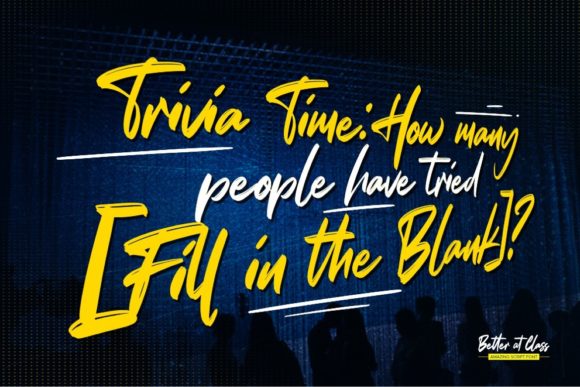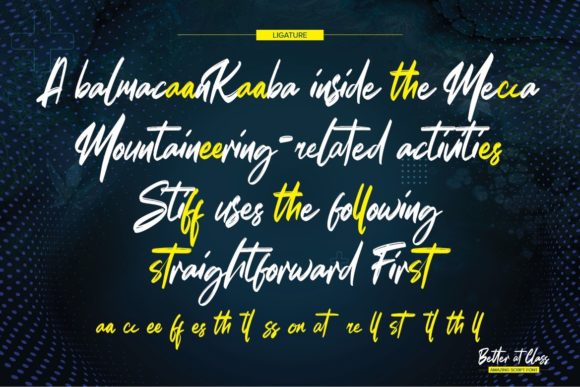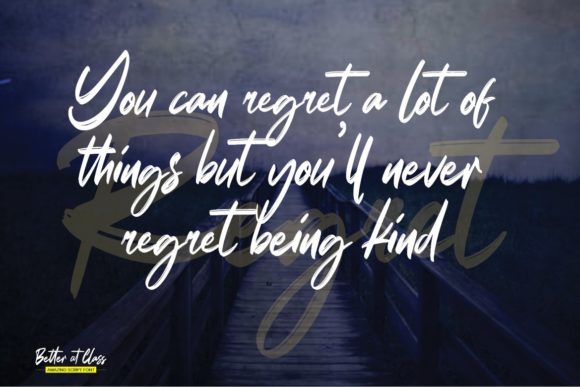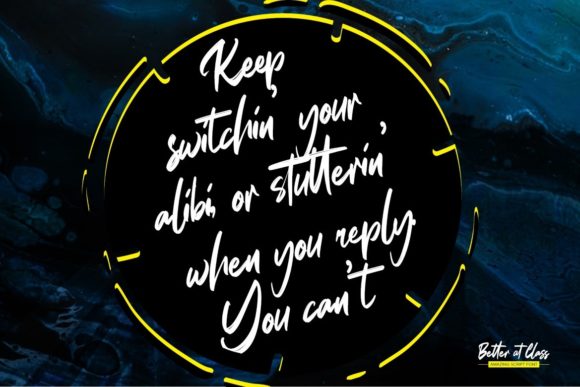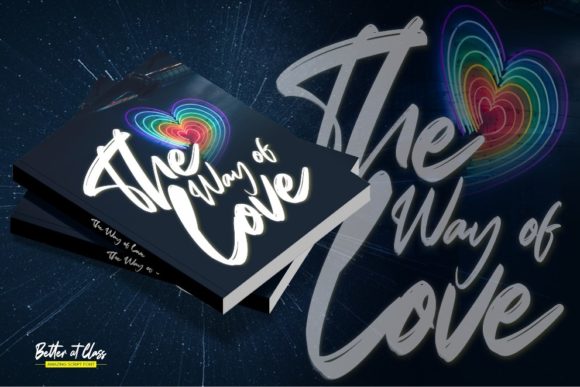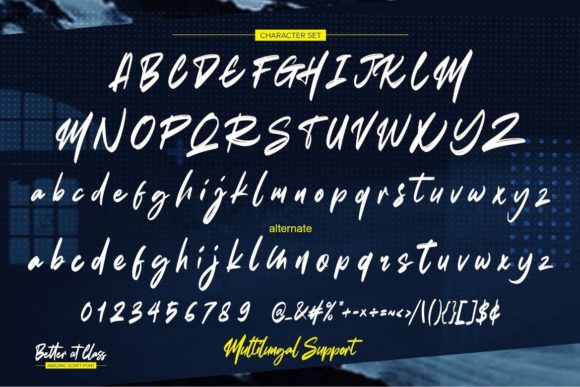
Ah, the eternal quest for the perfect font! I recall working on a project last year, pouring my heart and soul into every detail, only to hit a roadblock: finding a font that exuded luxury and sophistication. My client wanted a design that screamed high-end, but I was stuck with a sea of bland, generic fonts. That’s when I stumbled upon **Better at Class Font**, a game-changing, paint-brushed handwritten font that added a spark of elegance to my design. In this article, I’ll share my experience with Better at Class, its features, and how to make the most of it in various design platforms.
An Honest Review of Better at Class Font
- ✨ Luxurious feel: Better at Class adds a touch of sophistication to any design project.
- ✅ PUA encoded: Easy access to amazing glyphs and ligatures.
- 🎨 Versatile: Suitable for a wide range of design projects, from branding to packaging.
While Better at Class is an excellent font, there are a few minor limitations to consider:
- 🤔 Glyph overload: With so many glyphs and ligatures available, it can be overwhelming to navigate.
- ⚠️ Not suitable for body text: Better at Class is best used for headings, titles, or accents, as it may be too ornate for lengthy text.
The Designer Inspiration Behind Better at Class
While I couldn’t find any information on the designer’s background, it’s clear that Better at Class Font was crafted with love and attention to detail. The font’s luxurious feel and versatility make it a valuable addition to any designer’s toolkit. Perhaps the designer was inspired by the world of high-end fashion or luxury branding, where attention to detail and sophistication are paramount.
Q: Is Better at Class Font suitable for body text?
A: No, Better at Class Font is best used for headings, titles, or accents. Its ornate nature makes it less suitable for lengthy body text.